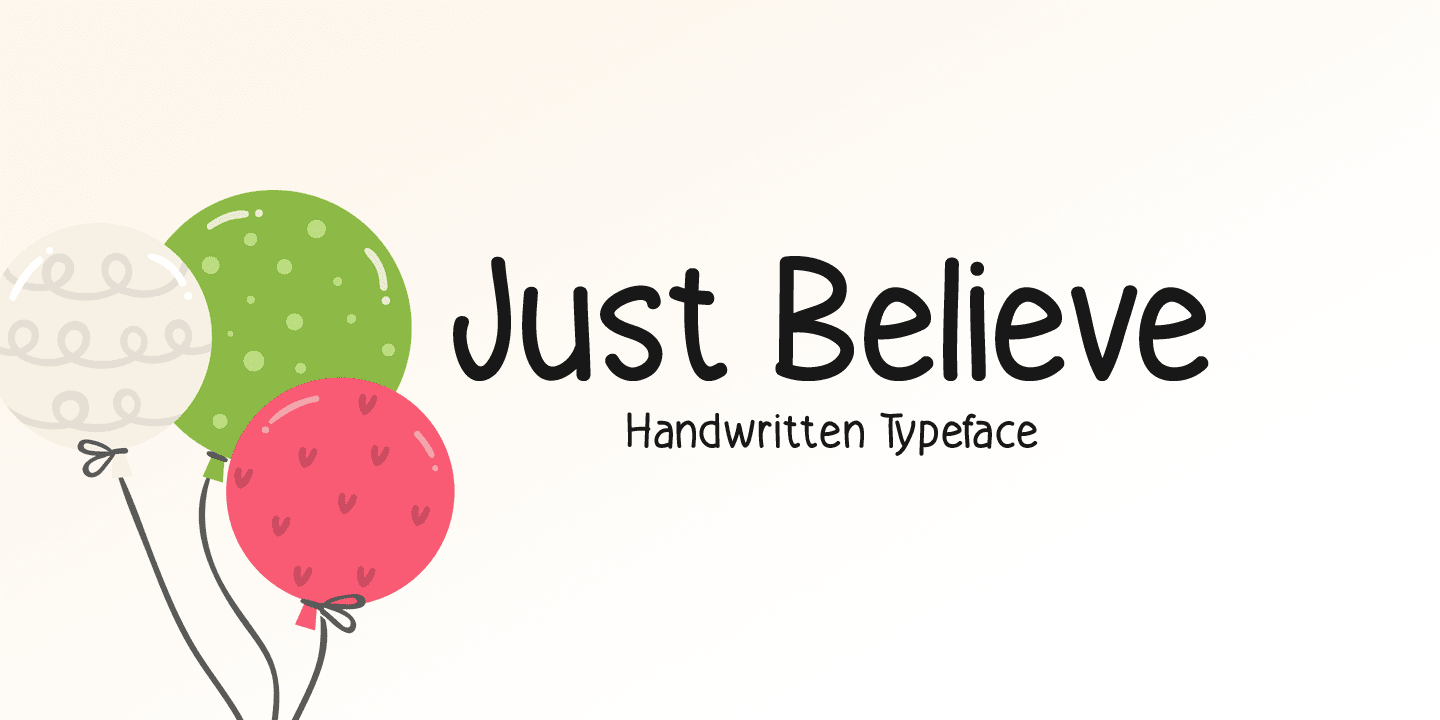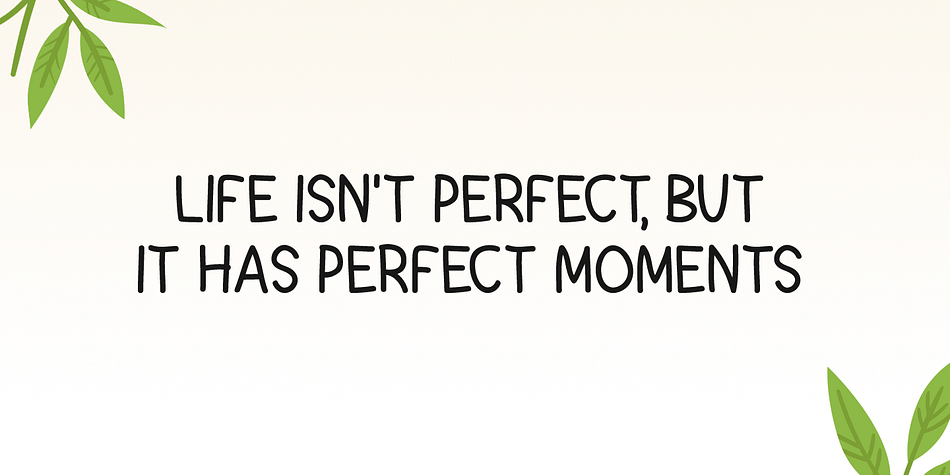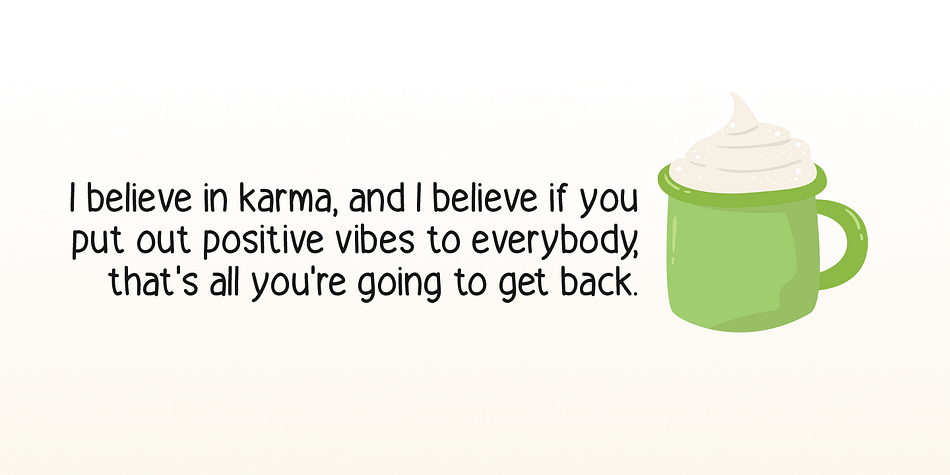
Designed by Md. Shohail Bhuiyan, Just Believe is a comic, hand drawn and kids font published by Seemly Fonts.
Just Believe is a simple and organic handwritten font. Natural and a bit quirky, this font will brighten up each of your designs. Add it confidently to your projects, and you will love the results.